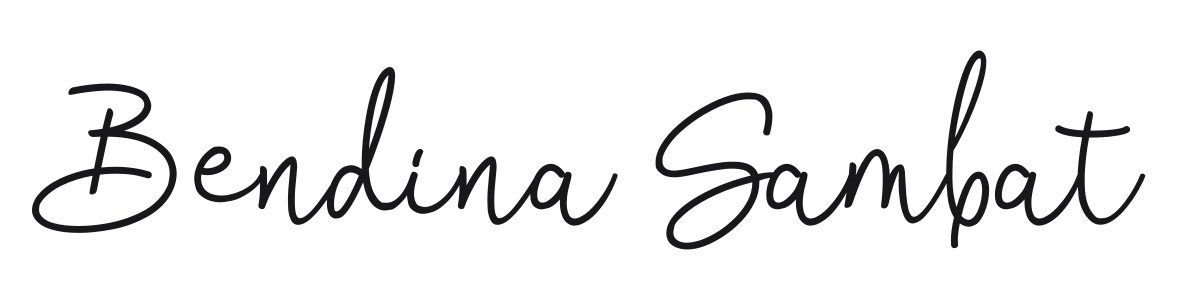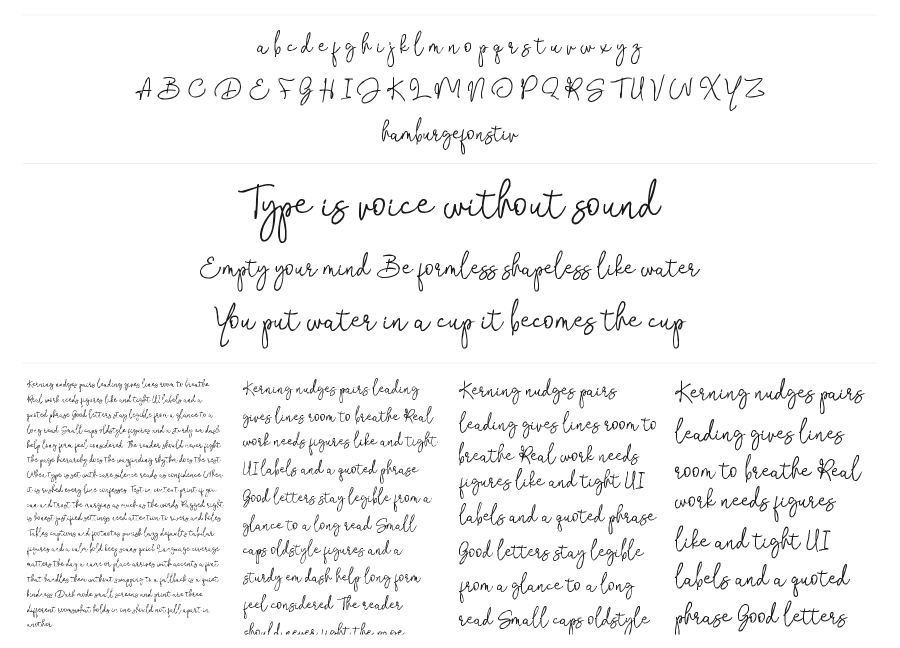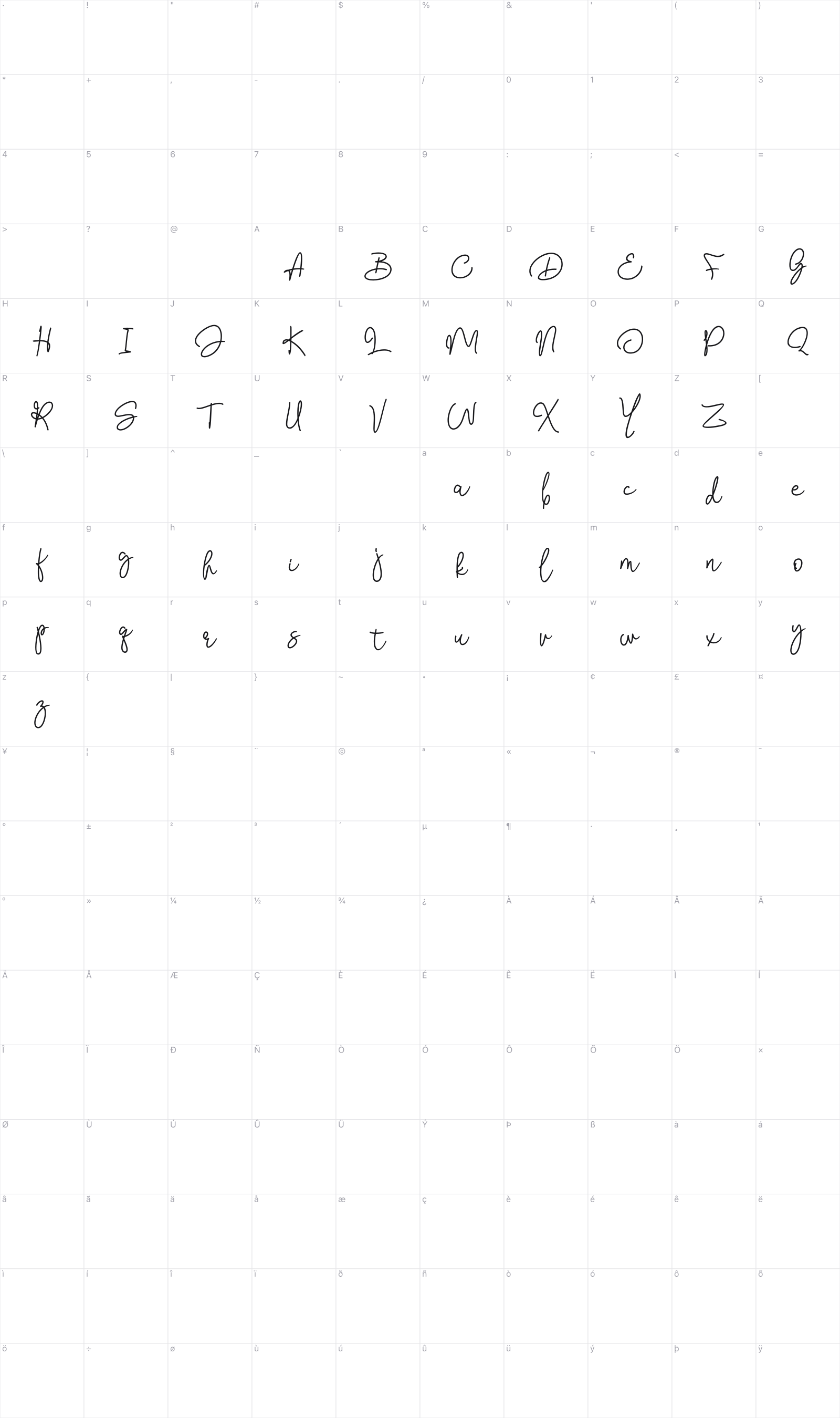
Bendina Sambat
Bendina Sambat is a casual handwritten script with smooth, flowing connections and a warm monoline stroke. The looped descenders and gentle forward slant give it an effortless, pen-on-paper quality that reads as personal and inviting. A go-to for branding, packaging, and social media graphics that want a handcrafted feel.